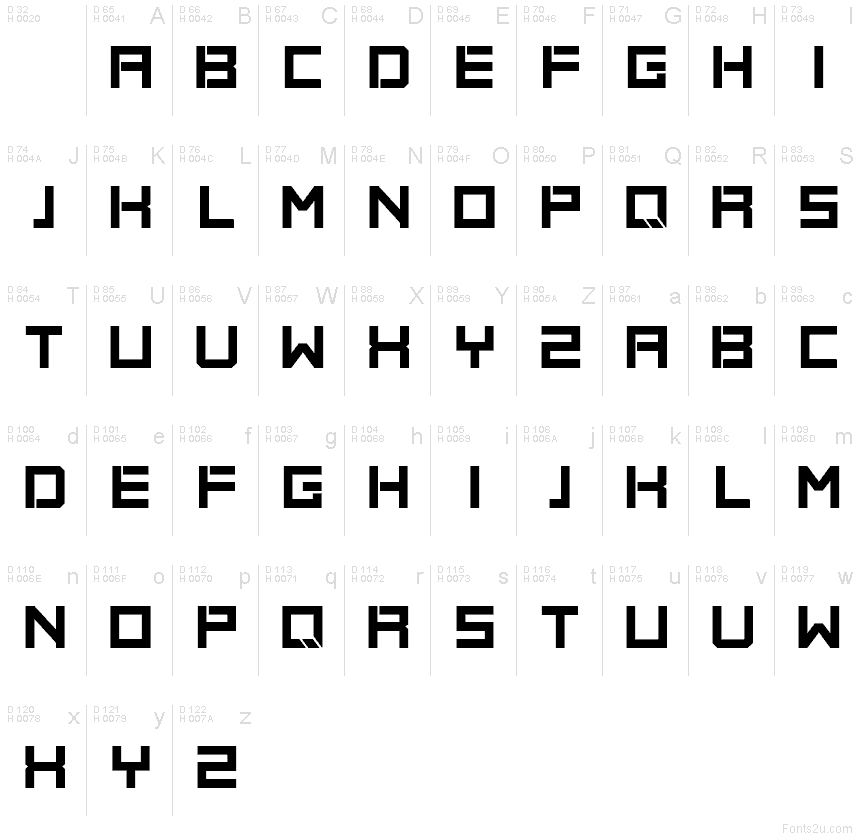
Reorienting Regular
Reorienting font by Vladimir Nikolic is a techno display font with an expanded structure. Its modern, geometric design pulls the reader into a digital realm defined by bold and minimalist elements. With structured features and a contemporary aesthetic, this free font suits projects impeccable in contrast and readability.
Reorienting was made to shine in logos (video games, apps), business names (tech companies), branding concepts (futuristic brands), packaging design (high-end products), screen displays (websites, apps), posters (advertisements, campaigns), video titles and app interfaces amongst others.